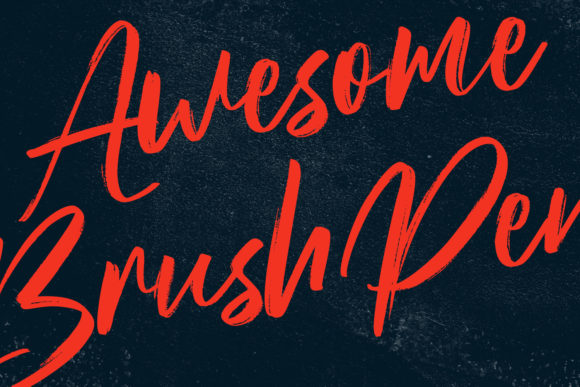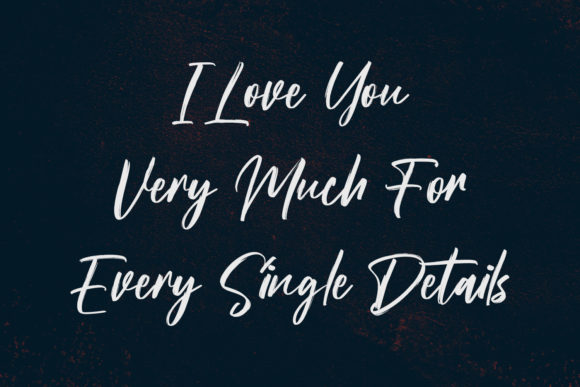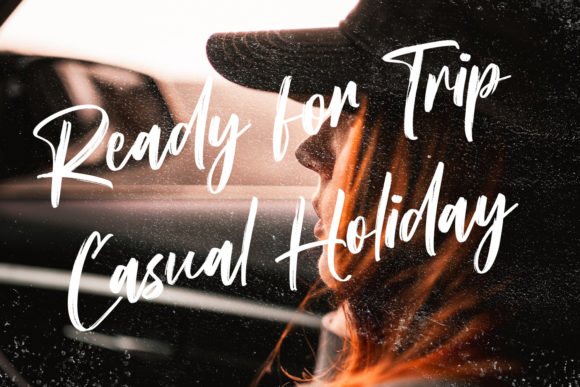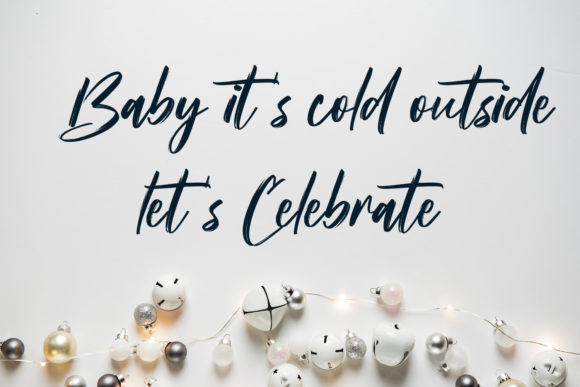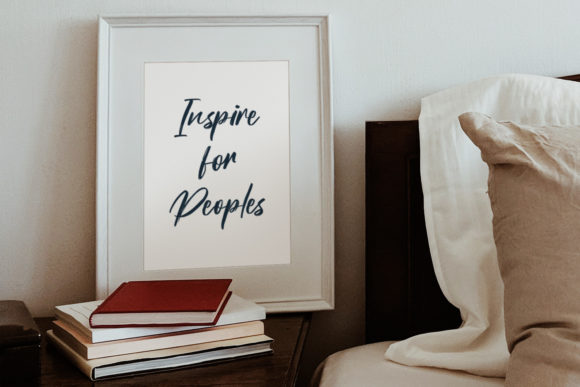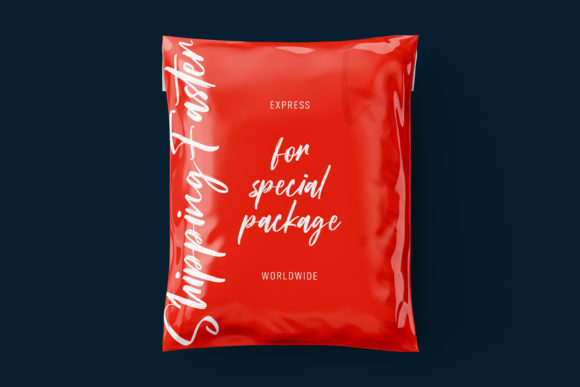
Introduction to Roxfranks Font
As designers, we’ve all been there – staring at a blank page, trying to bring our creative vision to life. But sometimes, all it takes is the right tool to spark inspiration. For me, that tool was the Roxfranks Font. Its stylish and brushed handwritten feel instantly elevated my design from bland to grand. Whether I was working on a wedding invitation or a thank you card, this high-quality font added a personal touch that made my projects truly special.
What I love about Roxfranks Font is its versatility. It’s perfect for designers who want to create a unique and eye-catching design resource. With a transparent background and free download option, it’s easy to integrate into any creative project. Whether you’re a seasoned pro or just starting out, this font is a valuable addition to your design toolkit.
Key Features of Roxfranks Font
- Unique and customizable font with a transparent background, perfect for adding a touch of elegance to your design.
- Comes in a single weight, making it easy to integrate into your design without worrying about font pairing.
- Designed to be versatile, making it suitable for a wide range of creative projects, from digital art to print materials.
Honest Review: Roxfranks Font
I recently stumbled upon the Roxfranks Font while searching for a high-quality design resource for a creative project. The first thing that caught my attention was the font’s unique, quirky style.
What works well: ✨ The font is available for a free download, which is a huge plus for designers on a budget. The transparent background is also a great feature, making it easy to use in various design scenarios. The font’s high quality is evident in its crisp lines and well-balanced typography.
What’s not so great: ⚠️ The font’s character set is somewhat limited, which might be a drawback for designers who need to use it for complex, multi-language projects. Additionally, the font’s bold and italic styles could be improved upon.
Overall impression: I’d give the Roxfranks Font 3.5 out of 5 stars. While it’s a great resource for simple design projects, its limitations make it less suitable for more complex creative endeavors. Nevertheless, it’s a great addition to any designer’s toolkit, and I appreciate the fact that it’s available for free download.
- Limited character set
- Needs improvement in bold and italic styles
Tips for Getting the Most Out of Roxfranks Font
For optimal results, use Roxfranks Font in conjunction with other design elements that complement its unique style. Experiment with different font sizes, colors, and arrangements to achieve a visually striking effect.
Roxfranks Font is ideal for a variety of creative projects, including graphic design, digital art, and print materials. Its high-quality design and transparent background make it a versatile resource for designers and artists of all levels.
Is the Roxfranks Font suitable for use in digital design projects?
Yes, the Roxfranks Font is optimized for use in digital design projects, including web design, mobile app design, and video editing. The font is available in various sizes and resolutions, making it perfect for use in a wide range of digital applications.